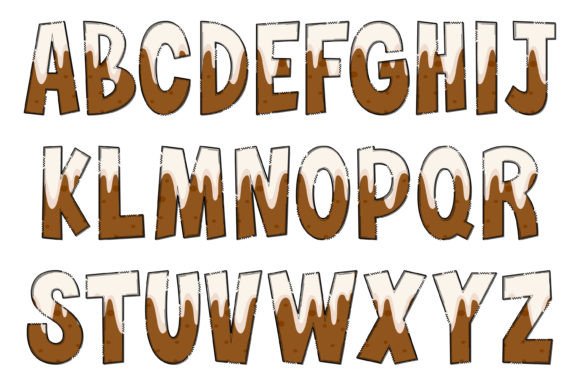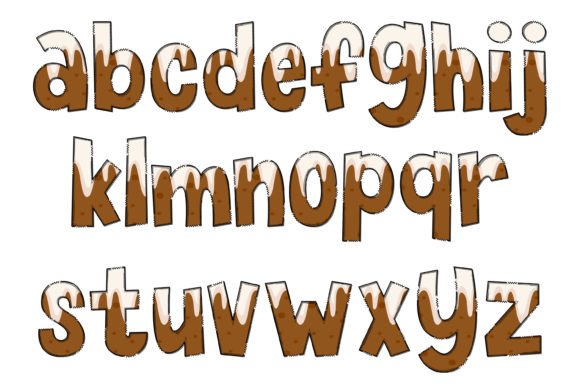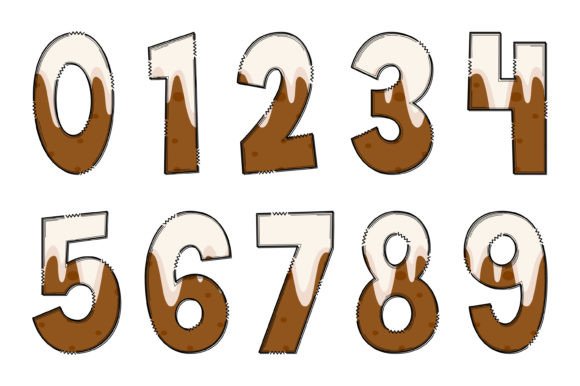
Dessert Font: A Whimsical and Colorful Addition to Your Design Collection
Are you a designer or crafter looking for a font that can add a playful and artistic touch to your projects? Look no further than the Dessert Font! This delightful font is perfect for creating engaging and visually appealing designs for children’s books, posters, invitations, greeting cards, and more.
What Makes Dessert Font So Special?
The Dessert Font is a unique and whimsical font that is sure to capture the attention of young audiences. Its colorful and playful design makes it an excellent choice for projects that require a fun and lively feel. The font is easy to read, which is essential for creating an engaging reading experience for children.
One of the standout features of the Dessert Font is its ability to add a touch of personality to any design. Whether you’re creating a children’s book, a poster, or an invitation, this font is sure to make your project stand out from the crowd.
- Use the Dessert Font to add a playful touch to your children’s book designs. The font’s whimsical design and bright colors are sure to delight young readers.
- Create eye-catching posters and invitations with the Dessert Font. The font’s bold and colorful design makes it perfect for grabbing attention.
- Add a personal touch to your greeting cards with the Dessert Font. The font’s playful design and easy-to-read style make it perfect for creating engaging and heartfelt cards.
- Unique and playful design: The Dessert Font is a one-of-a-kind font that adds a touch of personality to any design.
- Easy to read: The font’s clear and simple design makes it easy to read, even for young audiences.
If you’re looking for a font that can add a playful and artistic touch to your designs, the Dessert Font is an excellent choice. Its whimsical design, bright colors, and easy-to-read style make it perfect for creating engaging and visually appealing designs for children’s books, posters, invitations, greeting cards, and more.